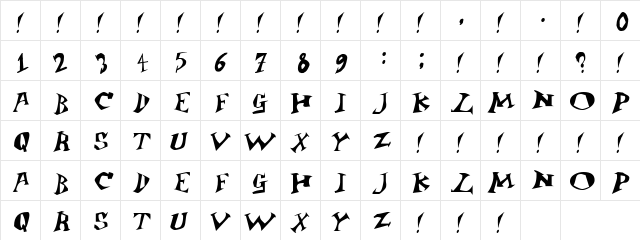
Mauglee Regular
Design Context for Mauglee Typeface
Mauglee is a composed and adaptable typeface that performs quietly and consistently across a wide range of design contexts.